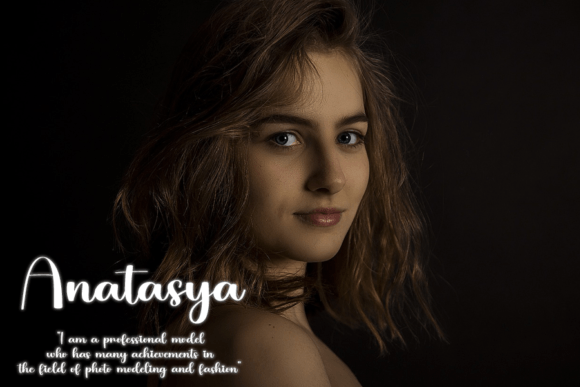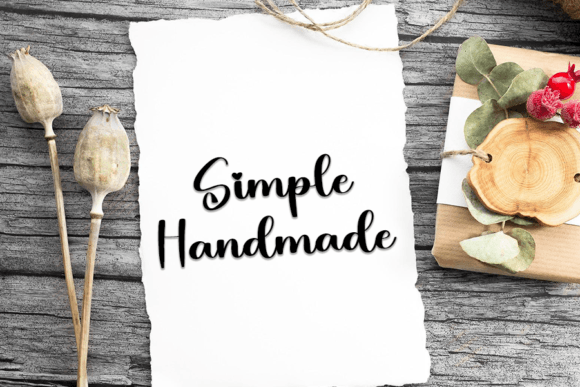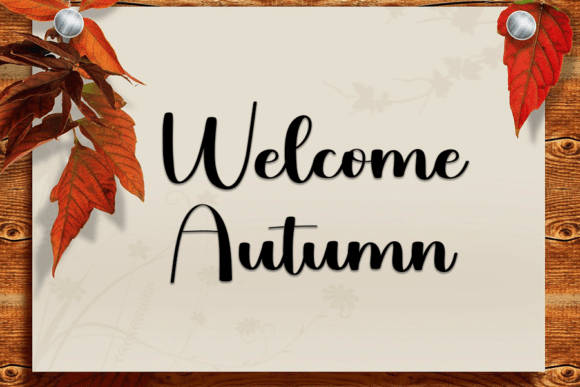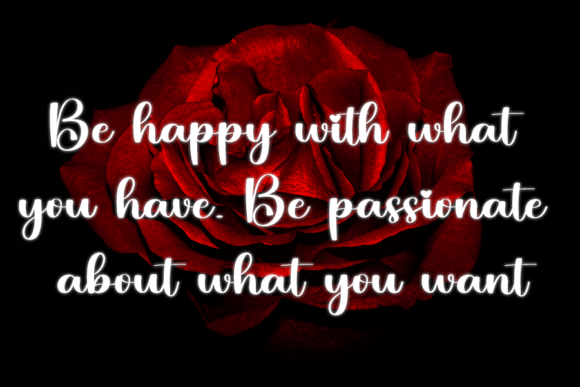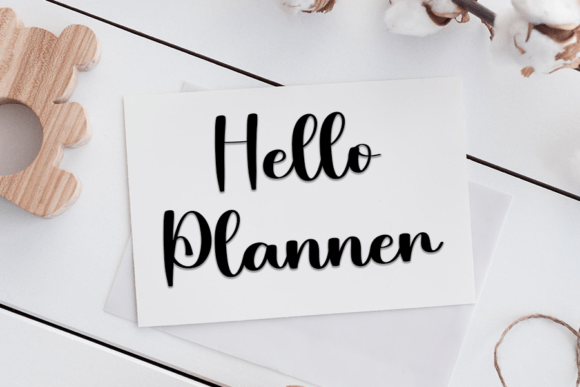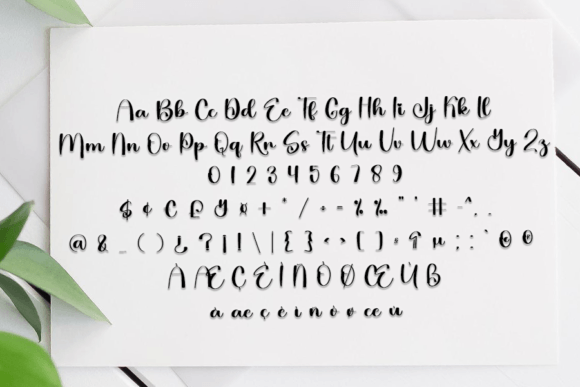
Introducing Business Font: Elevate Your Designs with a Modern Twist
In the world of typography, fonts play a crucial role in conveying the tone and personality of a brand. For designers and crafters, finding the perfect font can be a daunting task. However, if you’re looking for a font that exudes modernity, elegance, and sophistication, look no further than Business Font. This cool handwritten font is inspired by classic calligraphy, making it an ideal choice for a wide range of projects.
The Inspiration Behind Business Font
Business Font is a carefully crafted typeface that draws inspiration from traditional calligraphy. The font’s creator aimed to strike a balance between modernity and classic elegance, resulting in a unique and captivating font. With its spotless form and balanced strokes, Business Font is perfect for designers who want to add a touch of sophistication to their work.
Key Features of Business Font
So, what makes Business Font stand out from the rest? Here are some of its key features:
- Balanced and Varied: Business Font is designed to be neither too thin nor too thick, making it versatile and easy to read.
- Modern Vibe: The font’s modern twist makes it perfect for contemporary designs, from branding and advertising to packaging and digital media.
- Spotless Form: The font’s clean and precise lines ensure that it looks great in both print and digital formats.
- Inspired by Classic Calligraphy: Business Font’s roots in traditional calligraphy give it a timeless elegance that works well for a wide range of projects.
Use Cases for Business Font
Business Font is an incredibly versatile typeface that can be used in various design projects, including:
- Branding and Logo Design: Create a lasting impression with a custom logo that incorporates Business Font.
- Advertising and Marketing: Use Business Font in your ad campaigns to add a touch of sophistication and elegance.
- Packaging Design: Make your product stand out on store shelves with Business Font’s modern and eye-catching design.
- Digital Media: Use Business Font in your website, social media, or email marketing campaigns to create a cohesive brand image.
Why Choose Business Font?
With so many fonts available, why should you choose Business Font? Here are a few reasons:
- Unique and Memorable: Business Font’s modern twist and classic inspiration make it a unique and memorable typeface.
- Easy to Read: The font’s balanced strokes and spotless form ensure that it’s easy to read, even at small sizes.
- Versatile: Business Font can be used in a wide range of design projects, from print to digital media.
In conclusion, Business Font is an exceptional typeface that offers a perfect blend of modernity and classic elegance. Its unique features, versatility, and ease of use make it an ideal choice for designers and crafters looking to elevate their designs. Whether you’re working on a branding project, advertising campaign, or packaging design, Business Font is sure to make a lasting impression.